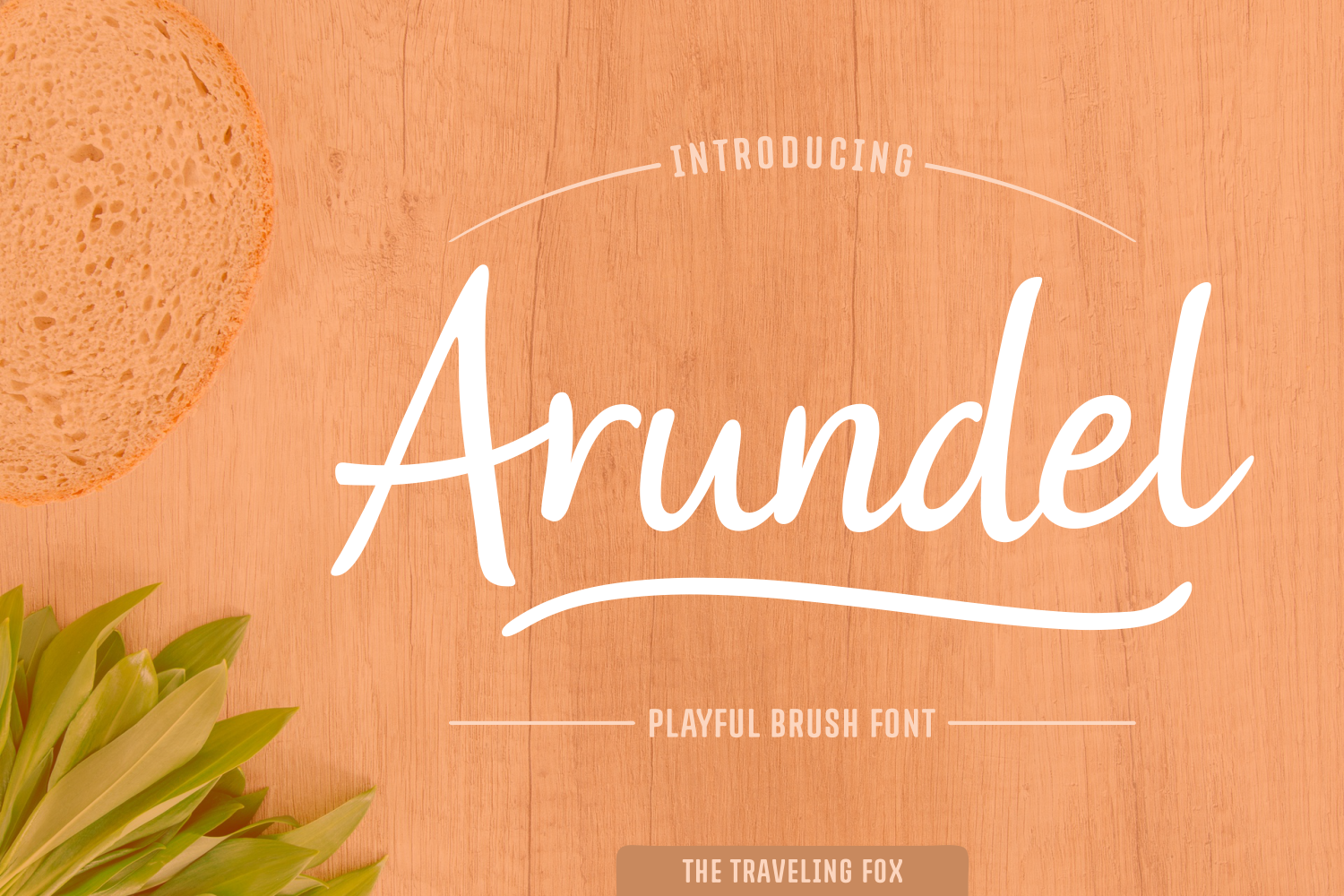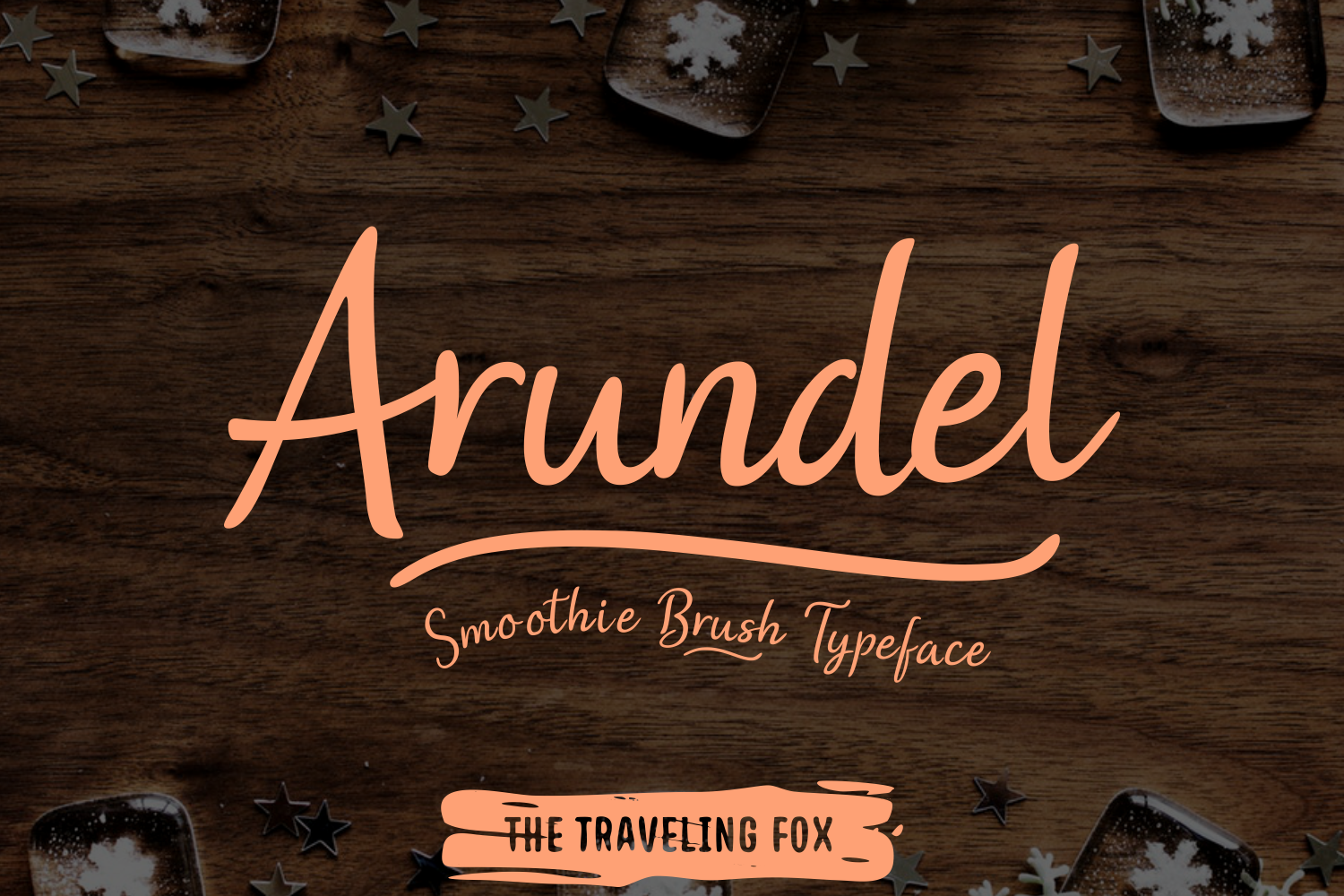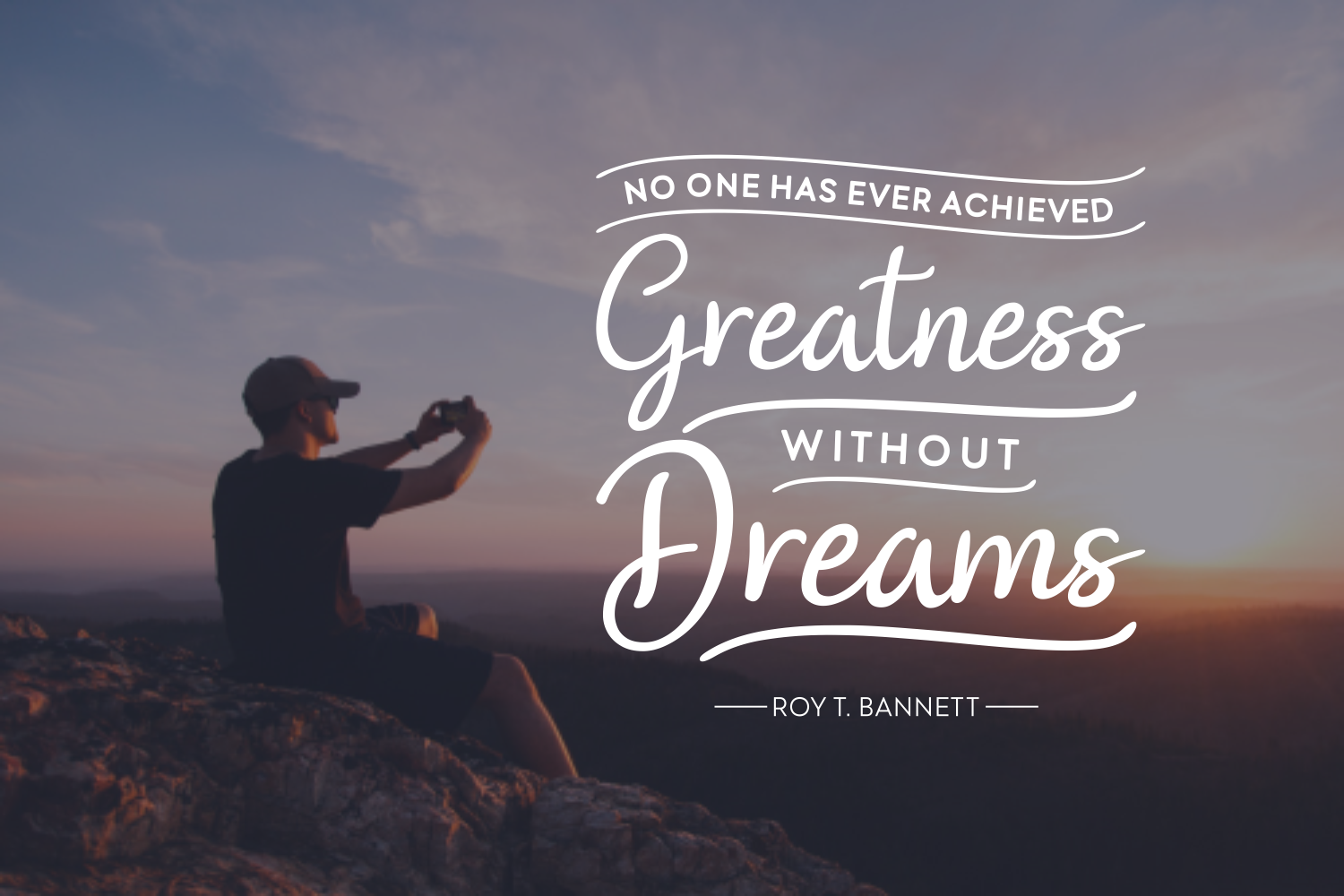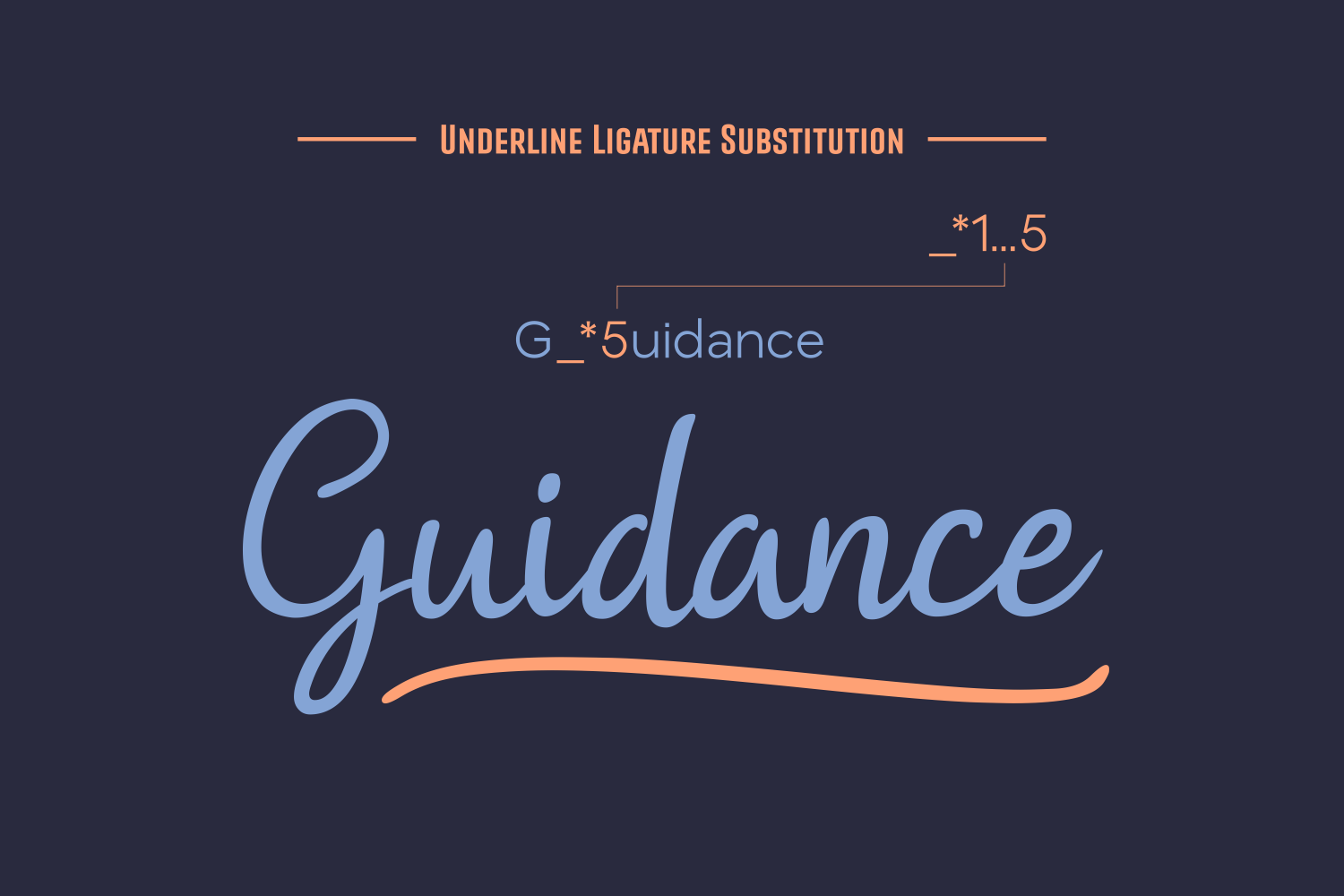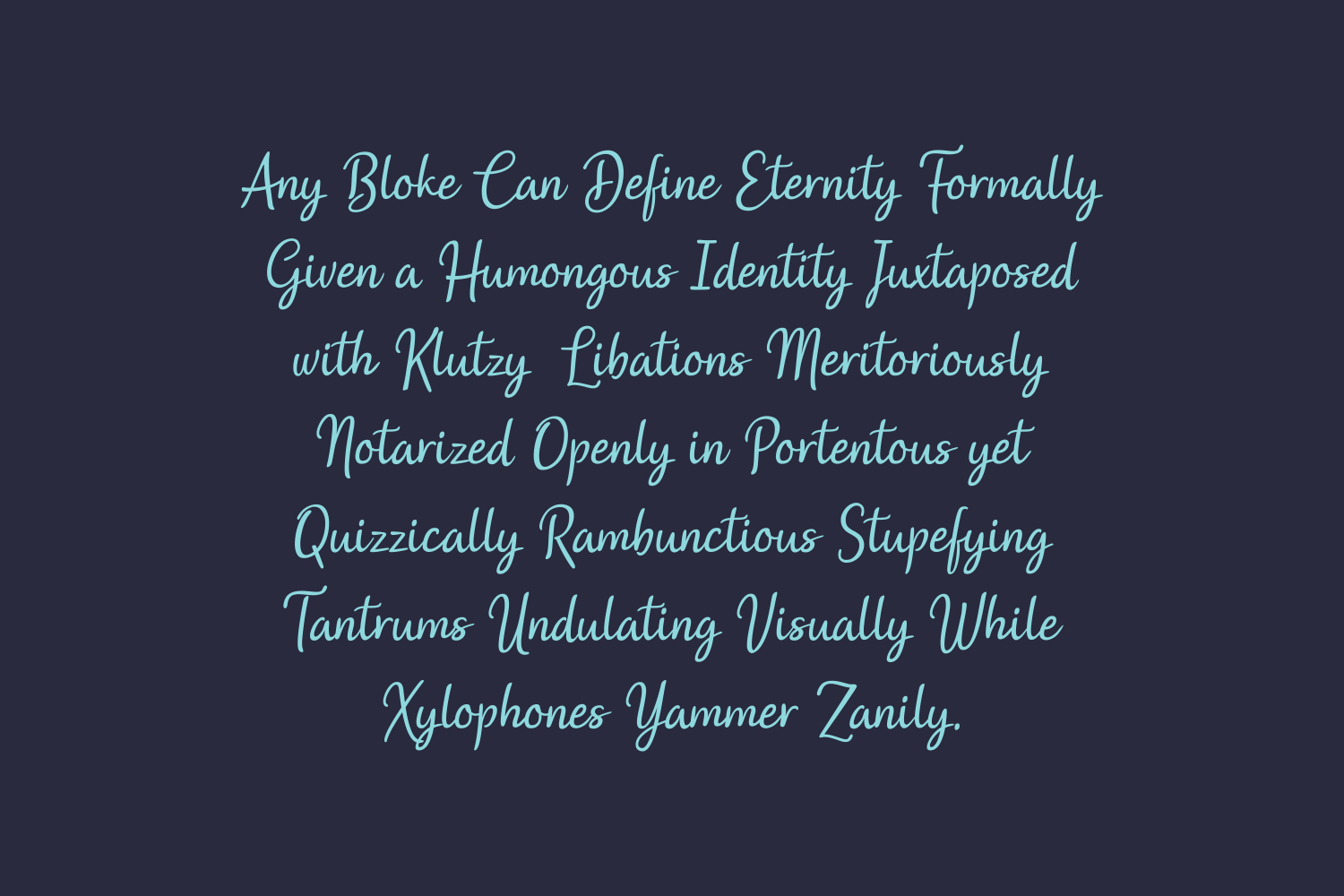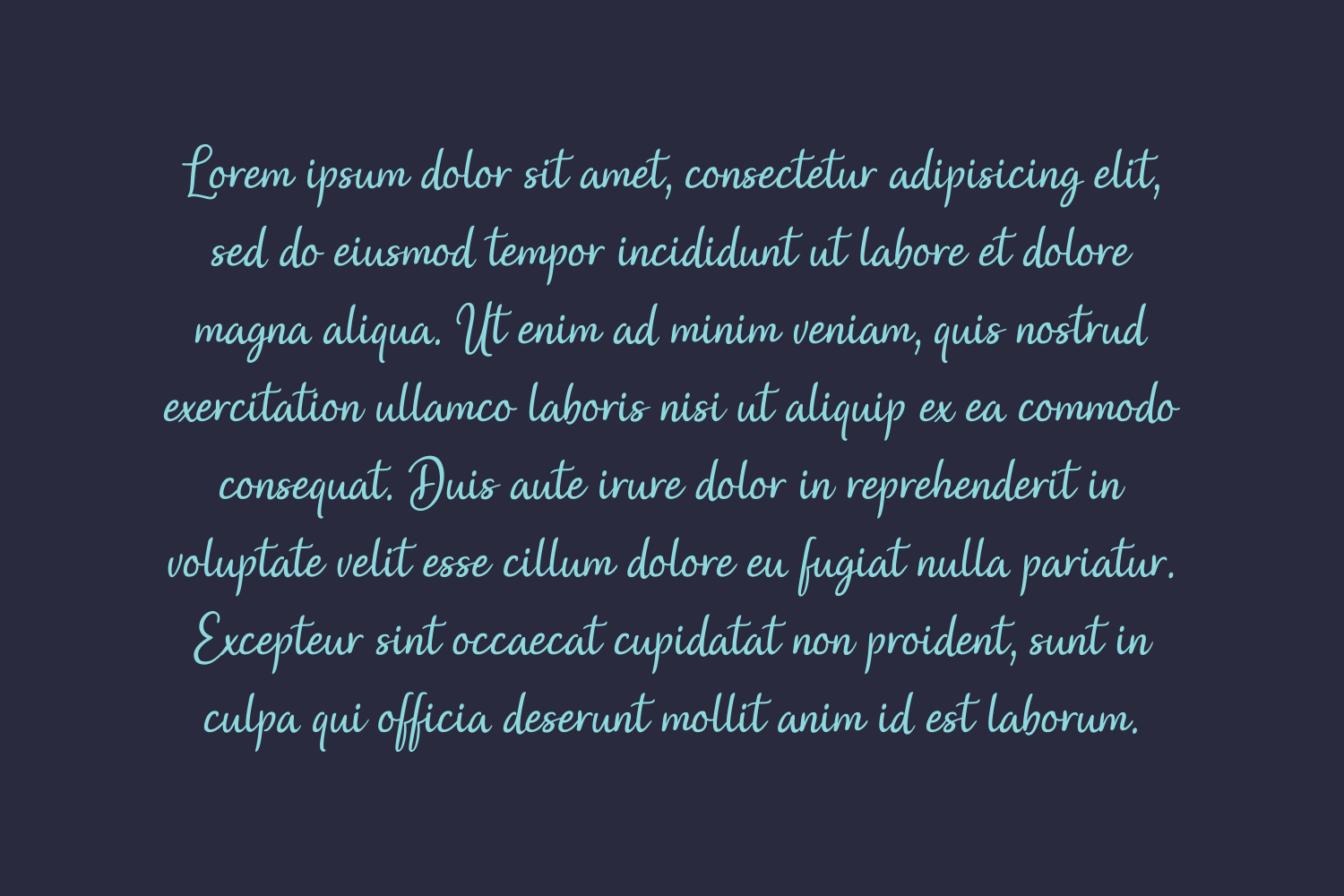
Arundel Font
About Arundel Font
Arundel is a wonderfully casual and freeing script font, suitable for a large range of styles and projects. Arundel pairs nicely with many other fonts, and works fantastically as a display or headline to your designs and projects.